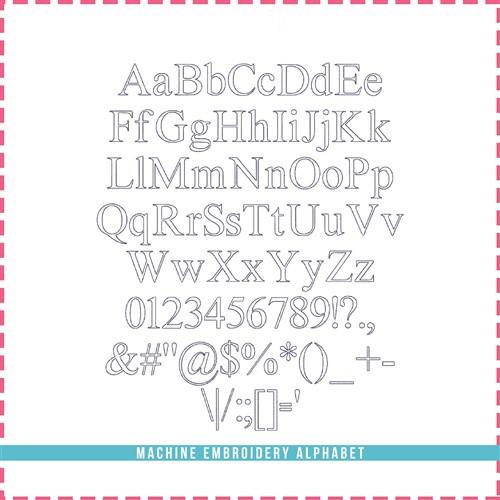
Times Outline Font Embroidery Font - Clean Outline Style - 17 Sizes 0.25" TO 7" - Home Format by Maya Kreations and other embroidery fonts available at EmbroideryDesigns.com.
Maya Kreations is happy to present Times Outline Font Embroidery Font - Clean Outline Style - 17 Sizes 0.25" TO 7" - Home Format machine embroidery font which has The Times Outline Font features a clean outline style, suitable for a variety of projects such as quilts and apparel. This embroidery font is available in PES, DST, and 8 other formats for versatile machine use. included. If you would like to view more embroidery fonts and alphabets please search our embroidery fonts page.
Times Outline Font Embroidery Font - Clean Outline Style - 17 Sizes 0.25" TO 7" - Home Format